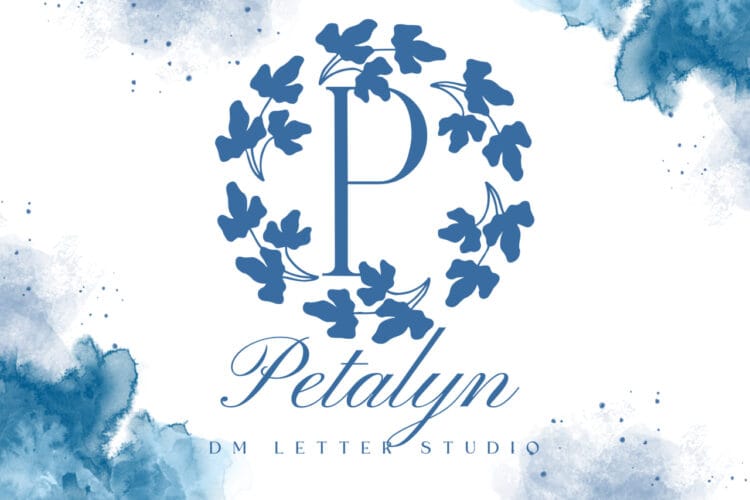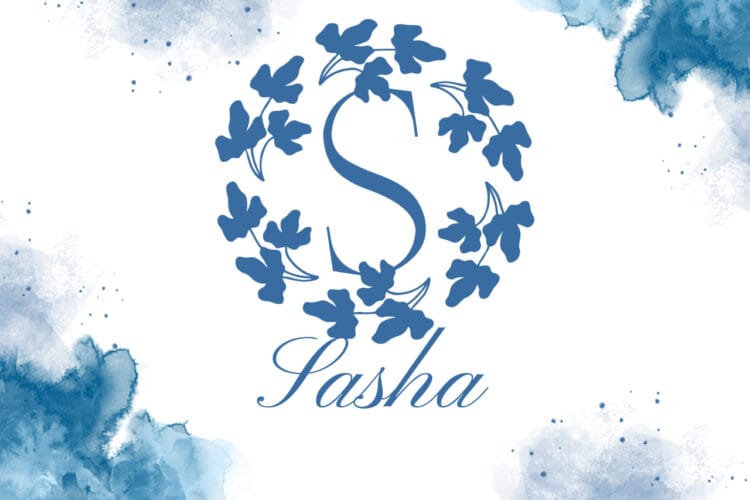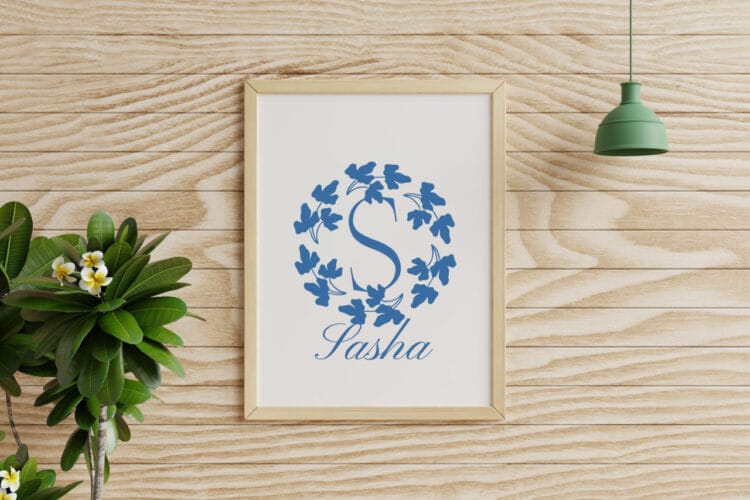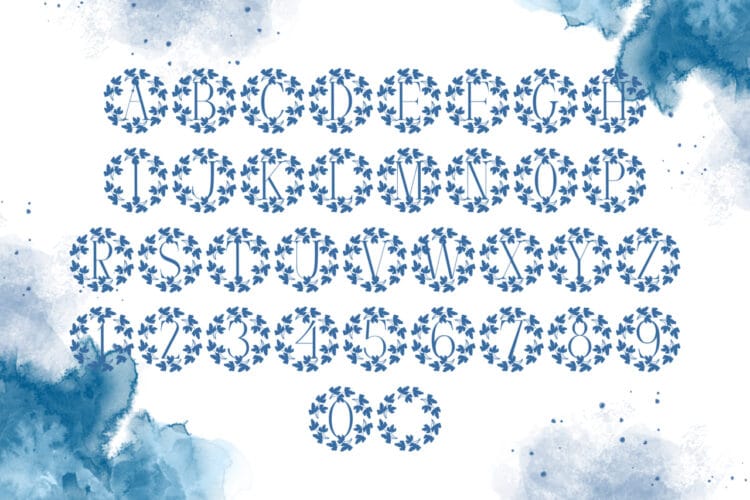
Meet Petalyn, the Monogram Font
Petalyn Monogram Font turns simple initials into soft, petal-inspired emblems that feel romantic and handcrafted. Strokes are smooth and balanced, so letters stay clear at any size. Because counters remain open, tiny tags look crisp while large signage keeps a graceful, premium finish. Use it for wedding suites, boutique logos, keepsake gifts, wax seals, stationery, and luxury packaging. As a result, your designs gain a floral elegance that helps products feel gift-ready.
Why Petalyn Monogram Font sells
Fast layouts with the Petalyn Monogram Font
Start with a generous initial, then let white space breathe around it. After that, add names, dates, or short titles in a simple supporting font. Because Petalyn holds shape at small sizes, cards, cartons, acrylic signs, and tags print beautifully. In addition, the proportions love wreath frames, oval borders, laurel rings, and floral line art, so full sets come together in minutes. Finally, save palette pairs like blush & ivory, rosewood & cream, champagne & charcoal, or sage & pearl to repeat across product lines.
Creative uses and quick wins
Logo seals, place cards, and certificate badges
Wax seals, ribbon tags, and keepsake boxes
Invitation covers, menu headings, and table numbers
Favor stickers, tissue labels, and thank-you notes
Select stylistic alternates for key letters
Curves tuned for foil, letterpress, engraving, laser, vinyl, DTF, and sublimation
Design tips for Petalyn Monogram Font